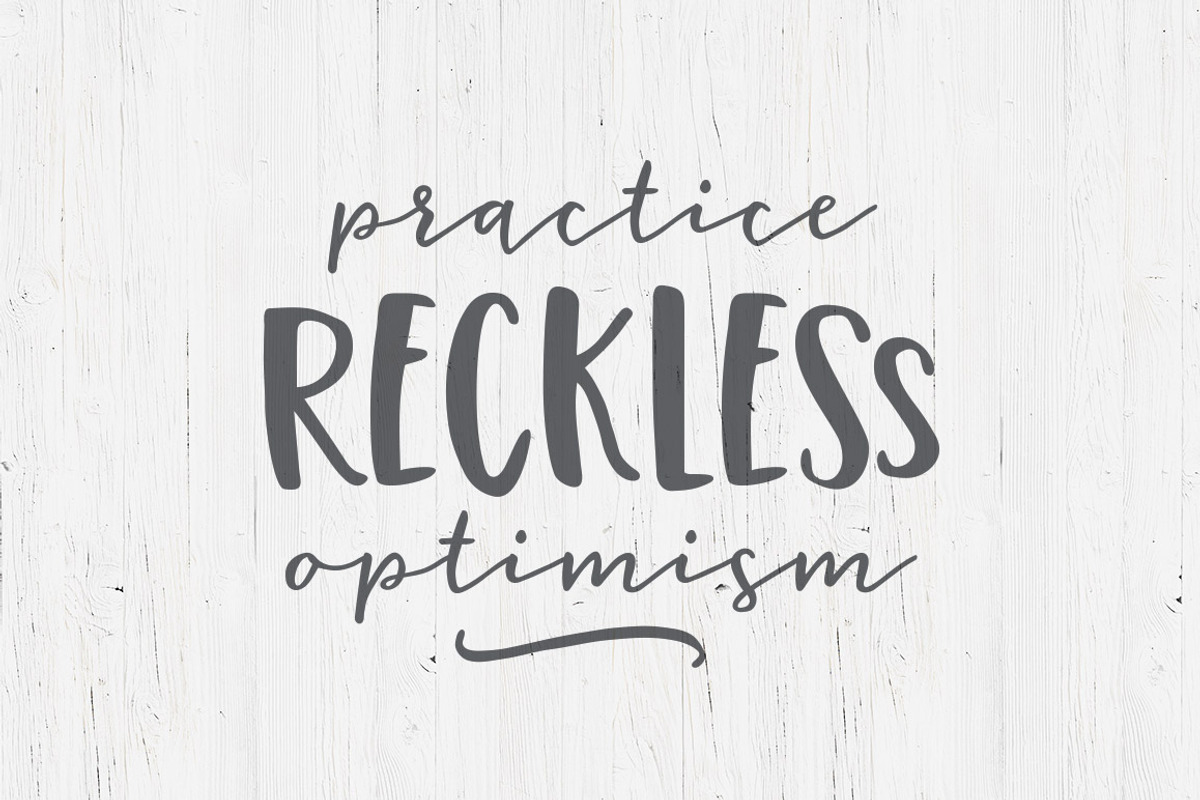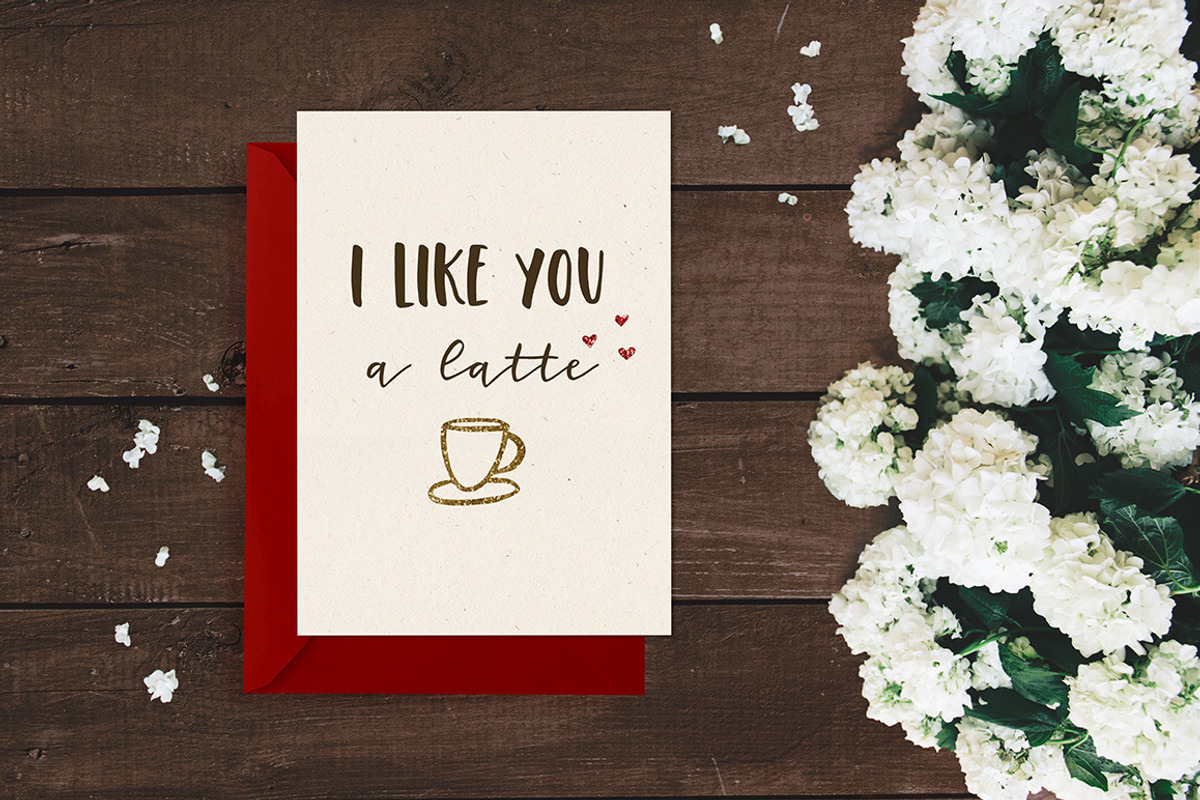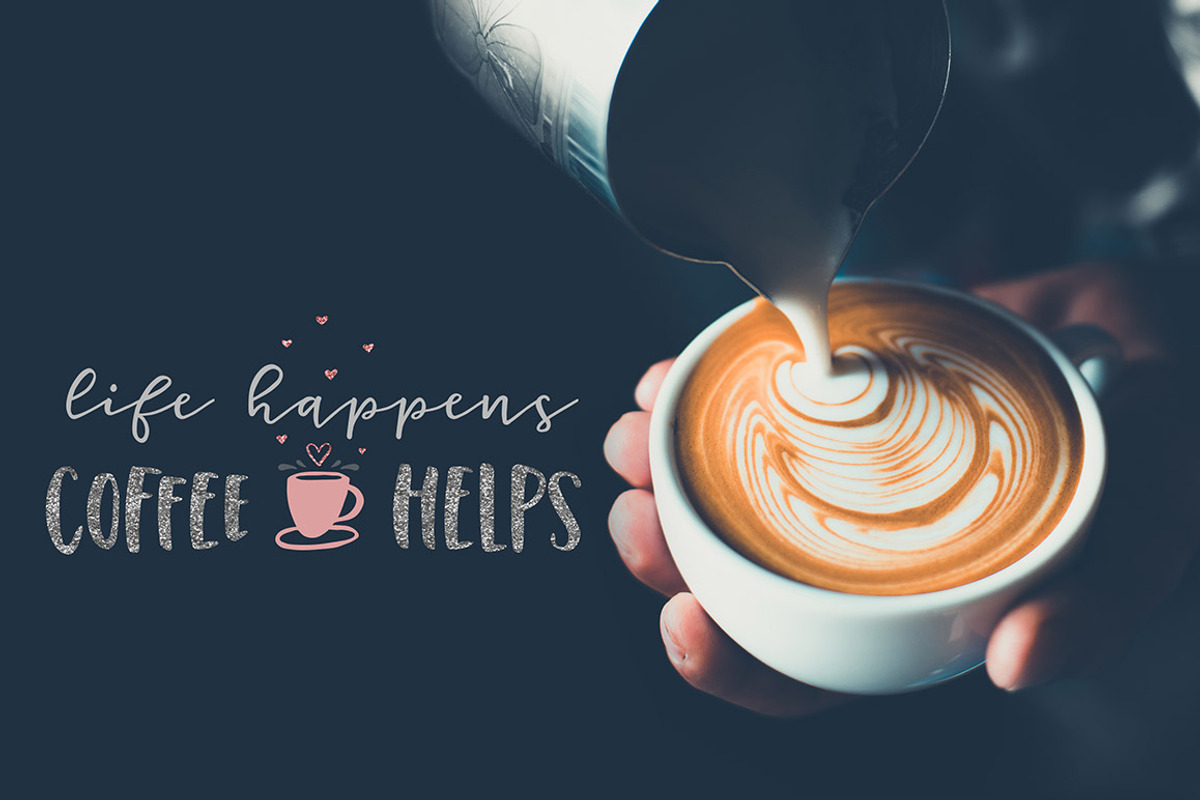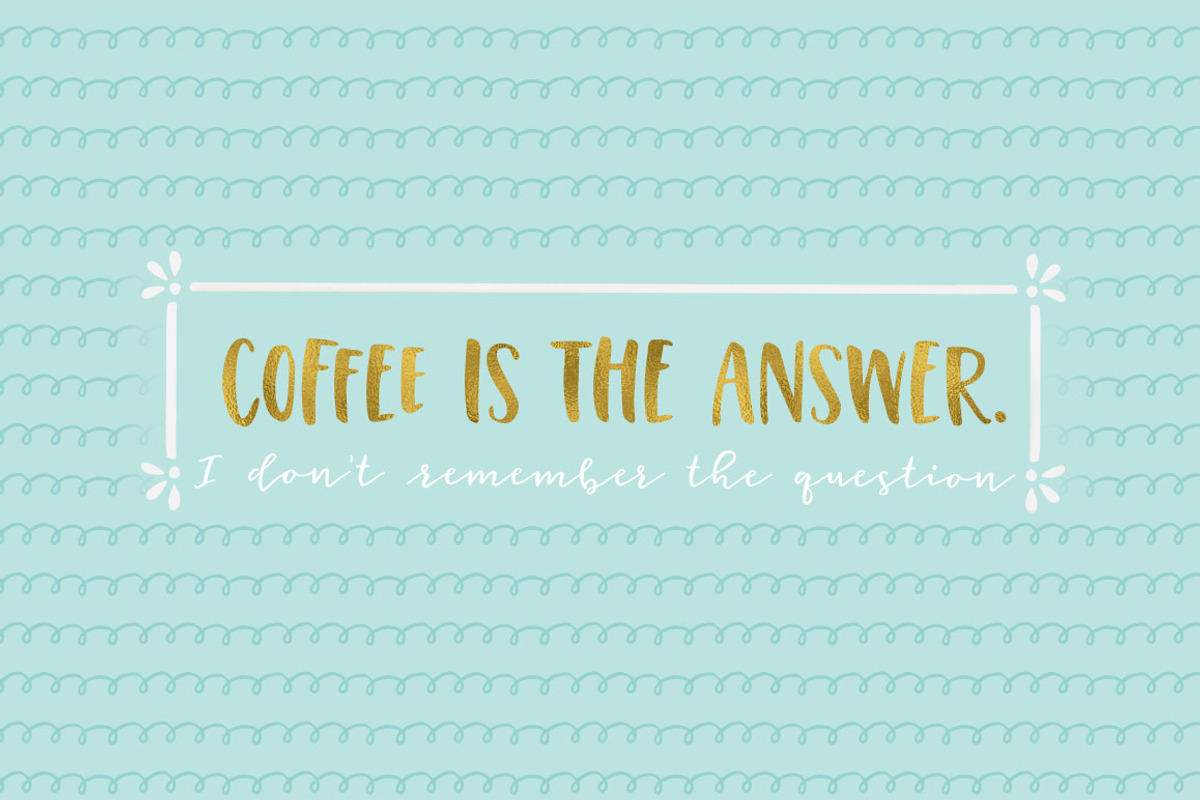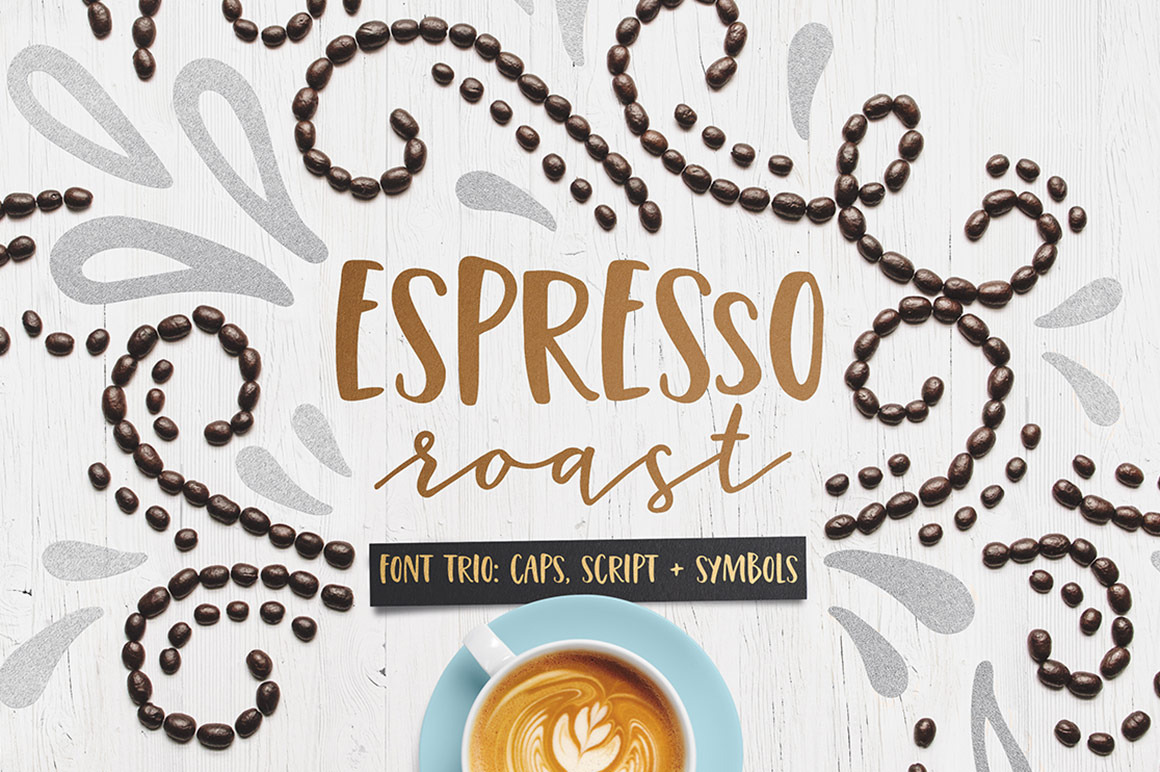
Espresso Roast Font Trio
Give your designs a double shot of personality with font trio, Espresso Roast!
Perfect for greeting cards, branding, social media, packaging, magazine layouts, prints and more!
Espresso roast includes 3 styles, created to pair perfectly together to bring your designs to life: Caps, Script + Symbols.
What's included with the Espresso Roast Font Trio:
- A Caps style with 12 double ligatures for more unique, hand drawn looks
- A full Script style (upper and lowercase)
- A Symbols font with over 50 unique symbols, plus 10 typeable, seamlessly repeating dividers (use numbers 0-9 to see!). A different symbol is assigned to every letter, upper and lowercase.